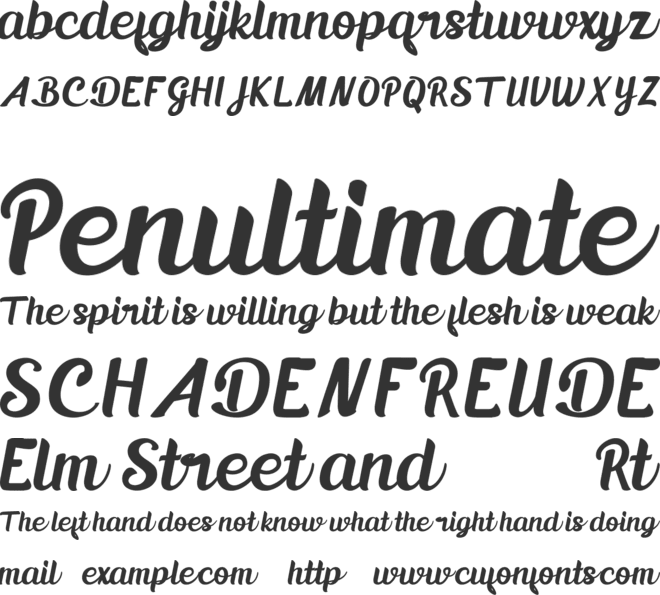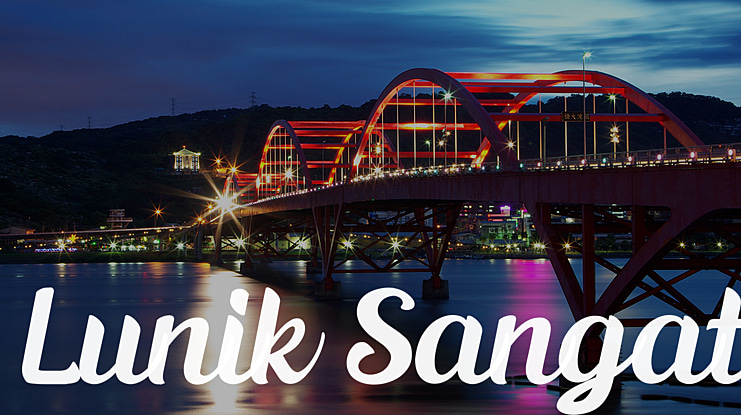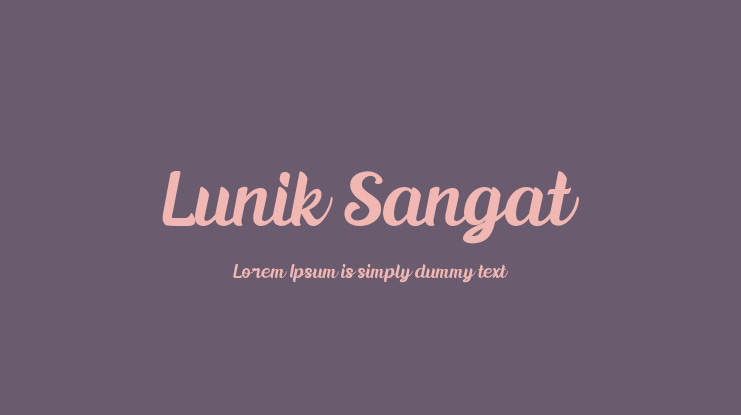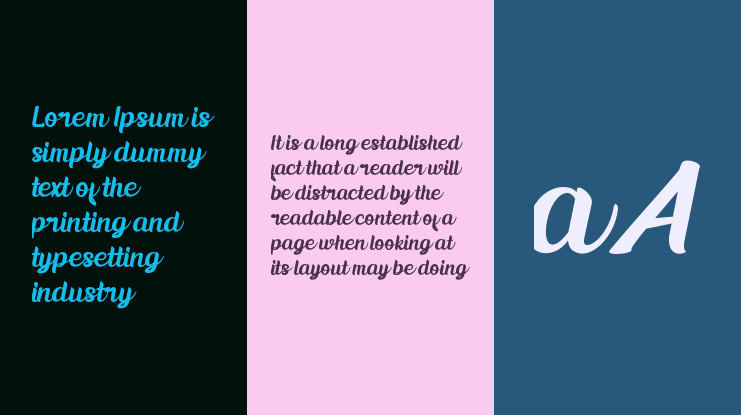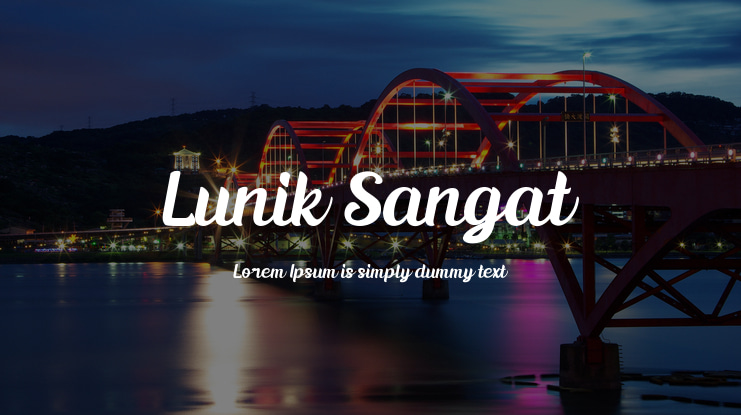
Lunik Sangat Font
Introducing a new font called Lunik Sangat, the story behind making lunik fonts is very, this font is made with a mixture of cultures in it which is about the word "lunik" which means big and soft. This illustrates the shape and curve of each letter. I specially designed this font to make it suitable for branding, logos, product packaging, labels, & others.
Lunik Sangat Font Includes uppercase, lowercase, multilingual support, punctuations, ligatures, stylisticset, all of which you can manage with software that supports the OpenType support feature. Like Adobe Indesign, Adobe Illustrator CS, Adobe Photoshop CC, and Corel Draw.